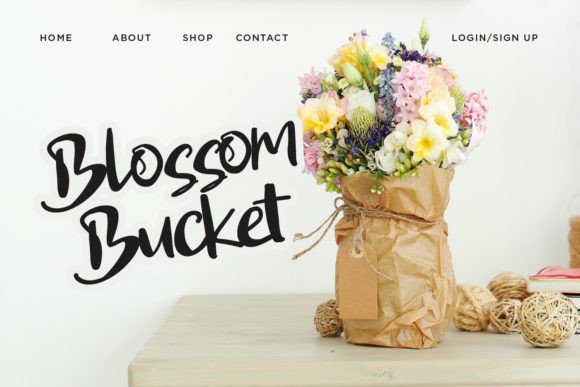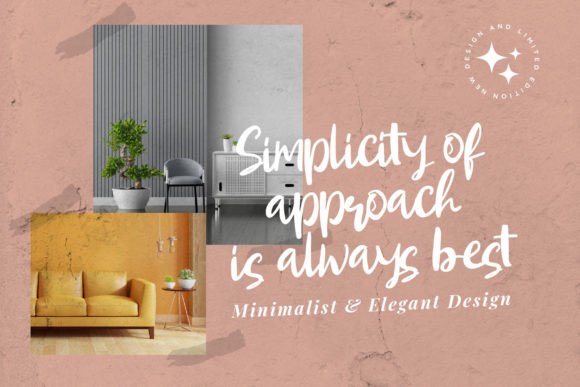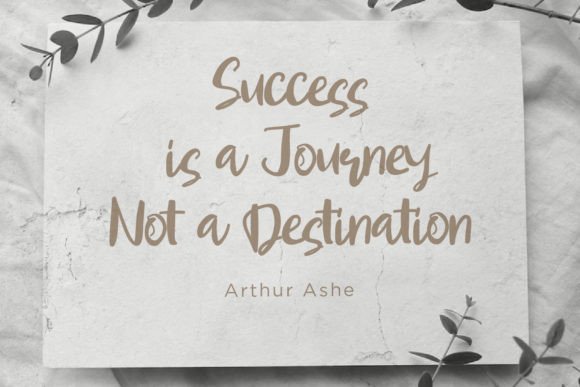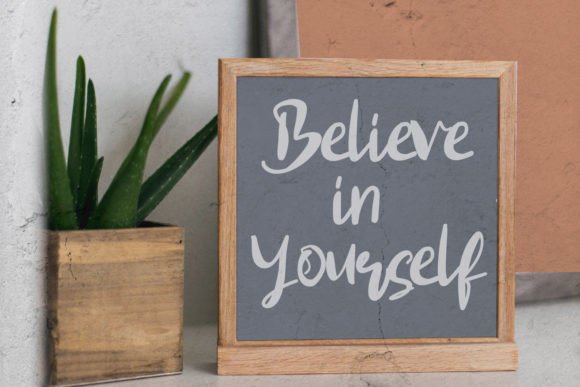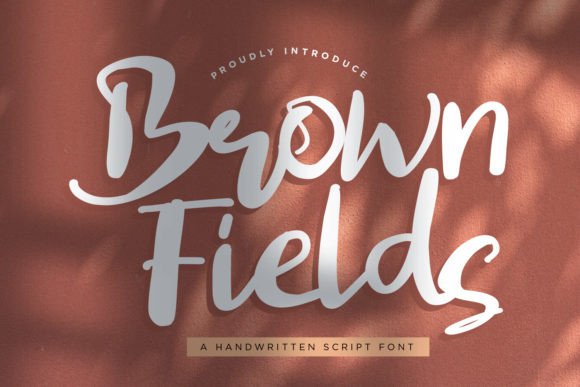
Brown Fields Font: Elevate Your Designs with Refined Elegance
In the world of typography, a font can make or break a design. For those seeking to add a touch of sophistication and exclusivity to their projects, Brown Fields Font is an exceptional choice. This stylish script font is designed to elevate any project with its refined elegance, making it perfect for high-end branding, editorial design, and more.
The Art of Brown Fields Font
Brown Fields Font is a masterpiece of typographic design, boasting unique, flowing curves and intricate details that make each letter a work of art. The font’s refined elegance is evident in its smooth lines, balanced proportions, and exquisite craftsmanship. Whether you’re working on a luxury brand identity, a high-end editorial project, or a bespoke craft design, Brown Fields Font is sure to impress.
Key Features of Brown Fields Font
- Exquisite craftsmanship: Each letter in Brown Fields Font is carefully crafted to showcase intricate details and flowing curves, making it a true work of art.
- Refined elegance: The font’s sophisticated design makes it perfect for high-end branding, editorial design, and any project that requires a touch of luxury.
- Unique character: Brown Fields Font’s distinctive style sets it apart from other script fonts, ensuring your designs stand out from the crowd.
- High-end versatility: The font’s versatility makes it suitable for a wide range of applications, from logo design and branding to editorial design and craft projects.
Brown Fields Font is an excellent choice for designers and crafters seeking to add a touch of sophistication to their projects. Whether you’re working on:
- Luxury branding: Create a lasting impression with a bespoke brand identity that exudes elegance and refinement.
- Editorial design: Elevate your publications with a stylish font that adds a touch of sophistication to your layouts.
- Stationery and invitations: Make a statement with beautifully designed stationery and invitations that showcase your attention to detail.
- Craft projects: Add a personal touch to your craft designs, from paper crafting to DIY home decor, with a font that’s as unique as your creations.
Why Choose Brown Fields Font?
With so many fonts available, why choose Brown Fields Font? Here are just a few reasons:
- Unparalleled elegance: Brown Fields Font offers a level of sophistication and refinement that’s hard to find in other script fonts.
- Exceptional versatility: The font’s versatility makes it suitable for a wide range of applications, from digital design to print and craft projects.
- Unique character: Brown Fields Font’s distinctive style ensures your designs stand out from the crowd, making it perfect for those seeking to create a lasting impression.
| Font Name | Brown Fields Font |
| Author | Naharstdio |
Brown Fields Font is an exceptional choice for designers and crafters seeking to add a touch of refined elegance to their projects. With its exquisite craftsmanship, unique character, and high-end versatility, this stylish script font is sure to elevate any design. Whether you’re working on a luxury brand identity, editorial design, or a bespoke craft project, Brown Fields Font is the perfect choice for those who demand the best.